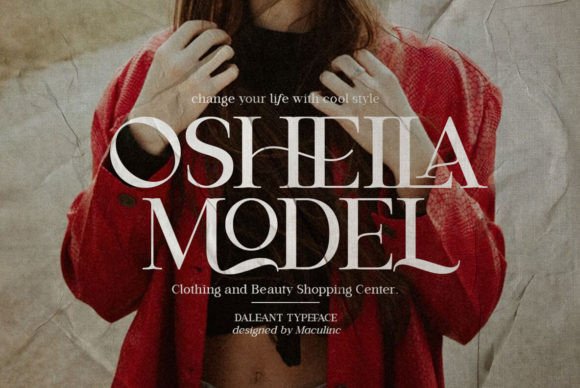
Daleant Font: Elevate Your Designs with Elegance and Sophistication
In the world of typography, fonts play a crucial role in conveying the tone and aesthetic of a design. Among the myriad of fonts available, Daleant Font stands out for its unique blend of elegance and attractiveness. This beautiful serif font is designed to bring a touch of sophistication to your projects, making it an ideal choice for a variety of creative endeavors. In this article, we will explore the features of Daleant Font, its unique alternatives, and how it can enhance your designs.
The Charm of Daleant Font
Daleant Font is characterized by its classic serif design, which exudes a sense of tradition and reliability. However, what sets it apart is its unique twist that adds a modern flair to its traditional look. This blend of old and new makes Daleant a versatile font suitable for various applications, from formal invitations to creative headers and beyond.
Key Features of Daleant Font
- Elegant Serif Design: The font features well-defined serifs that add to its classic appeal.
- Unique Alternatives: Daleant comes with a set of unique alternatives that allow designers to add a distinctive touch to their text.
- Versatility: Its sophisticated look makes it suitable for a wide range of projects, including invitations, headers, and creative designs.
- Easy to Read: Despite its elegant appearance, Daleant maintains excellent readability, making it perfect for both headings and body text.
Exploring Daleant’s Unique Alternatives
One of the standout features of Daleant Font is its collection of unique alternatives. These alternatives provide designers with the flexibility to add a distinctive flair to their text, making it stand out effortlessly. Whether you’re looking to create a bold statement or a subtle nuance, Daleant’s alternatives have got you covered.
How to Use Daleant’s Alternatives
Using Daleant’s unique alternatives is straightforward and offers endless possibilities for creative expression. Here are a few tips on how to make the most of these alternatives:
- Mix and Match: Combine different alternatives within the same text to create visual interest and hierarchy.
- Highlight Key Points: Use a distinctive alternative to draw attention to important information or calls to action.
- Customize Headings: Apply different alternatives to headings to create a visually appealing and structured design.
Applications of Daleant Font
Daleant Font’s elegance and versatility make it suitable for a wide range of applications. Here are some of the areas where Daleant truly shines:
Invitations and Events
For formal events, weddings, or any occasion that calls for a touch of elegance, Daleant Font is an excellent choice. Its sophisticated look adds a refined touch to invitations, ensuring that your guests receive a memorable first impression.
Headers and Titles
In editorial design, headings play a crucial role in guiding the reader through the content. Daleant’s unique alternatives can be used to create visually appealing headers that stand out without overpowering the text.
Creative Projects
For creative projects such as posters, flyers, or digital content, Daleant adds a distinctive touch that elevates the design. Its classic yet modern appeal makes it a versatile tool for designers looking to add sophistication to their work.
Tips for Using Daleant Font Effectively
To make the most of Daleant Font, consider the following tips:
- Pair with Complementary Fonts: When using Daleant for headings, pair it with a clean, sans-serif font for body text to create contrast and enhance readability.
- Experiment with Sizes: Play with different font sizes to create a hierarchy within your text, making it easier for readers to navigate.
- Utilize Color: Take advantage of Daleant’s elegant appearance by choosing colors that complement its sophisticated style.
Daleant Font is a beautiful and attractive serif font that brings a touch of elegance to your projects. With its unique alternatives, it adds a distinctive flair to your text, making it stand out effortlessly. Whether you’re working on invitations, headers, or any creative endeavor, Daleant’s charm and versatility make it a delightful choice for adding a sophisticated touch to your designs. By incorporating Daleant into your typography arsenal, you can elevate your designs and create visually stunning content that captivates your audience.